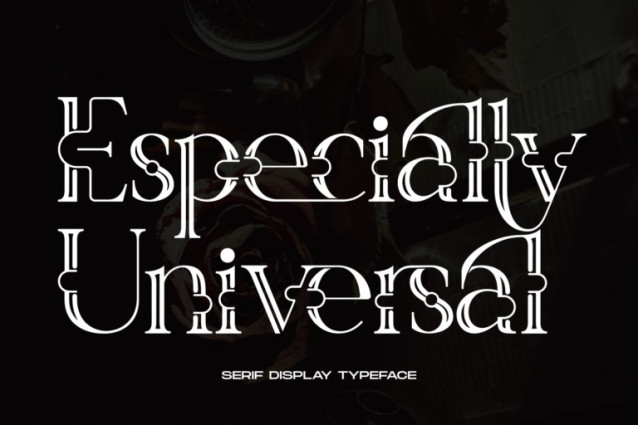
Especially Universal Font
Especially Universal Font – A Modern Ornamental Serif Typeface, a striking decorative serif typeface that redefines elegance and experimentation. Inspired by editorial sophistication and typographic geometry, each glyph is carefully crafted with interlocking connectors, high contrast strokes, and a bold personality that commands attention. Whether you’re designing a fashion magazine cover, luxury packaging, logo identity, or conceptual poster, Especially Universal will elevate your visual narrative with a sense of artful distinction.
Uppercase and Lowercase Letters
~100 Special Ligatures & Stylistic Alternates
Multilingual Support (Accented Characters)
About 100 ligatures combined with Stylistic Alternates Font: